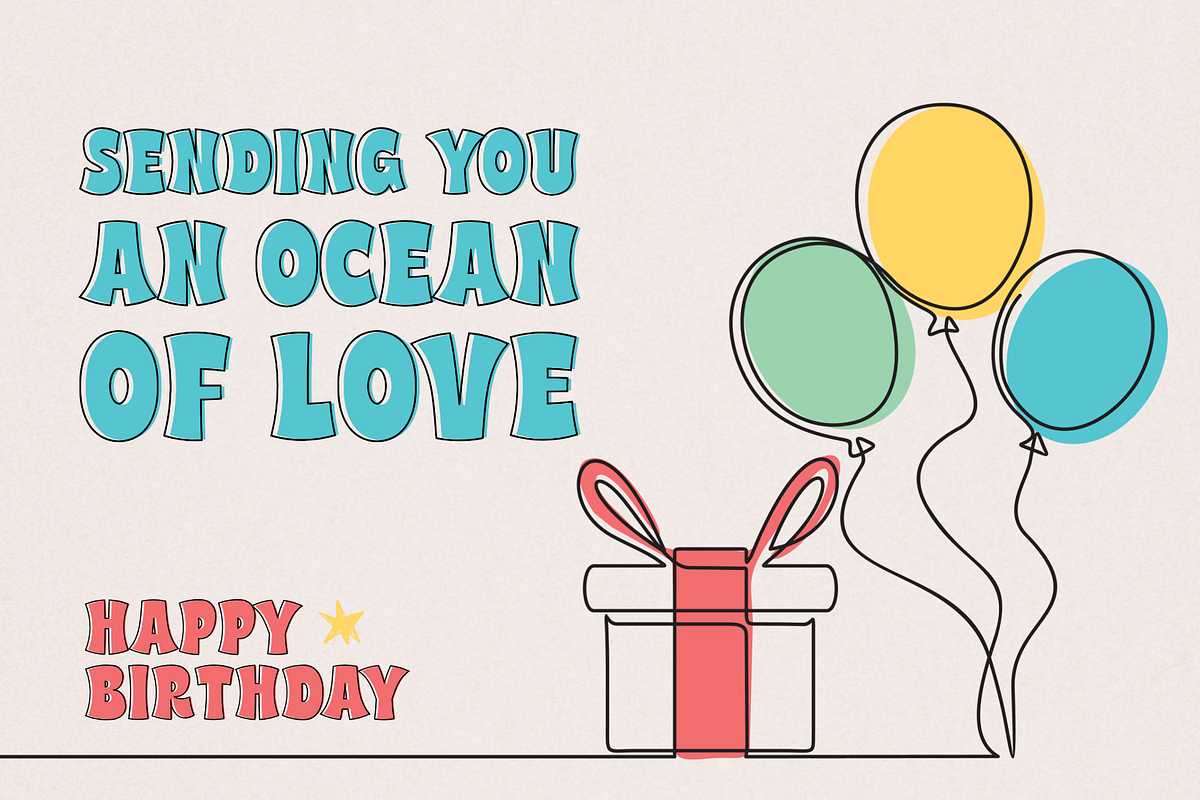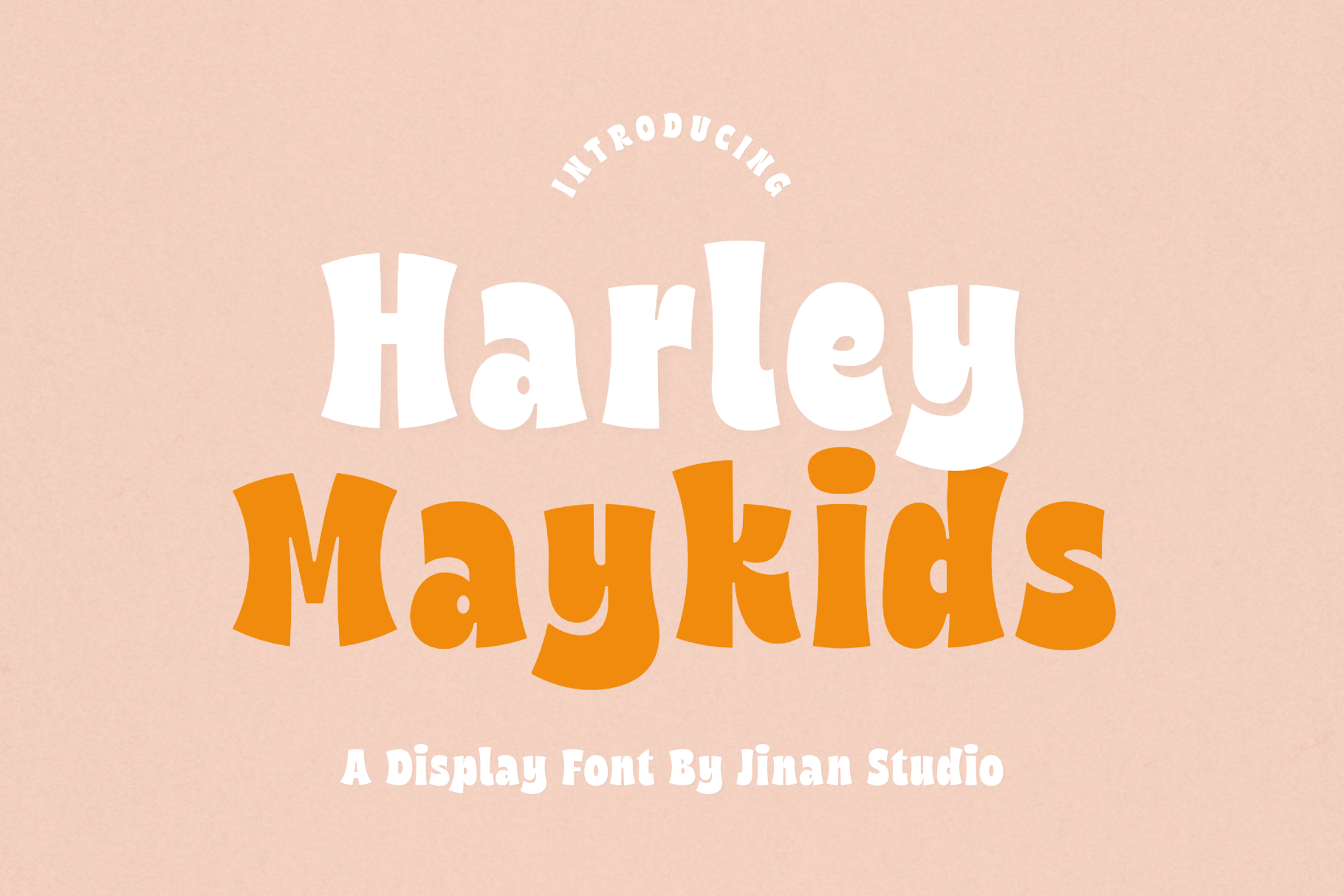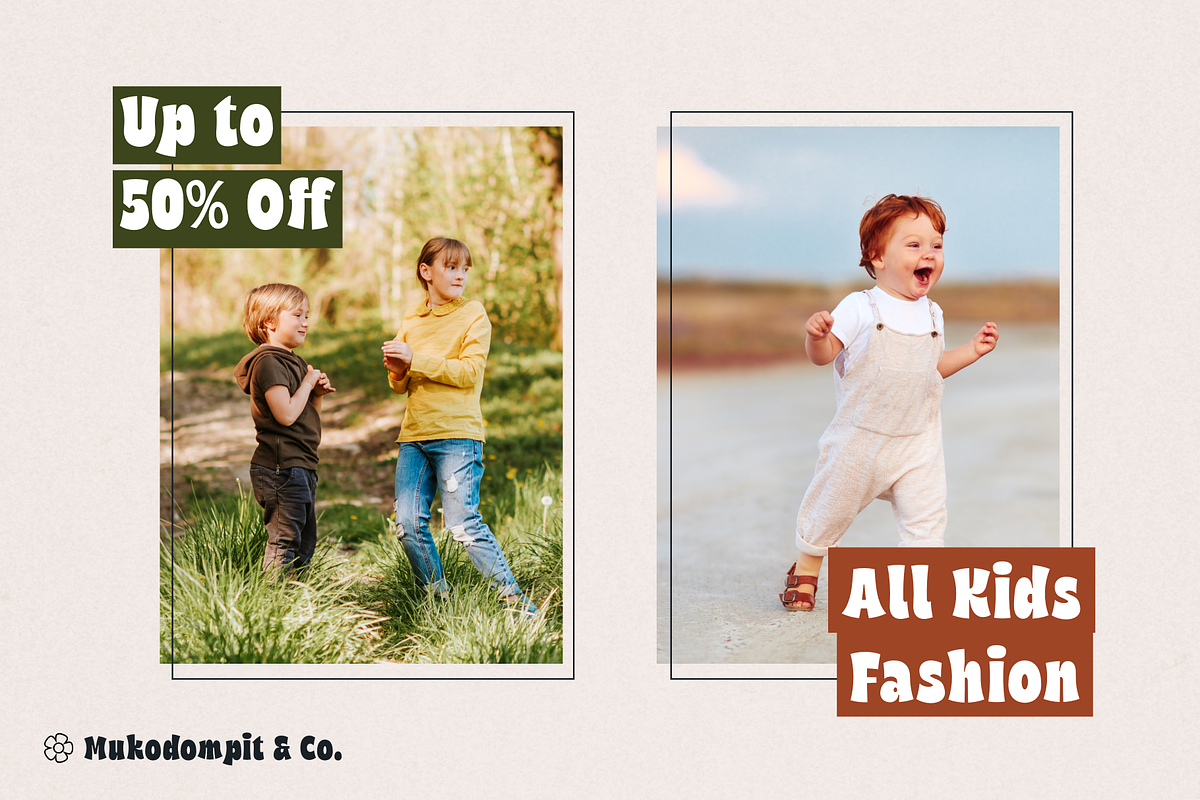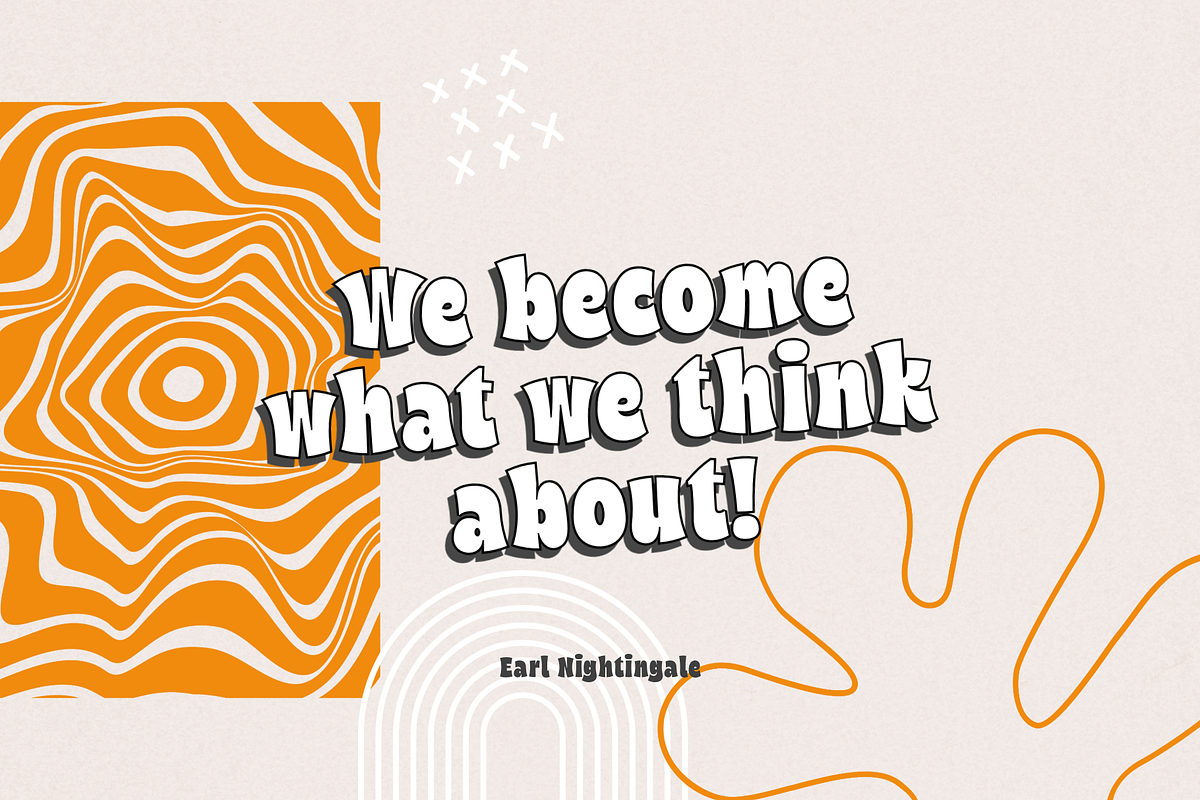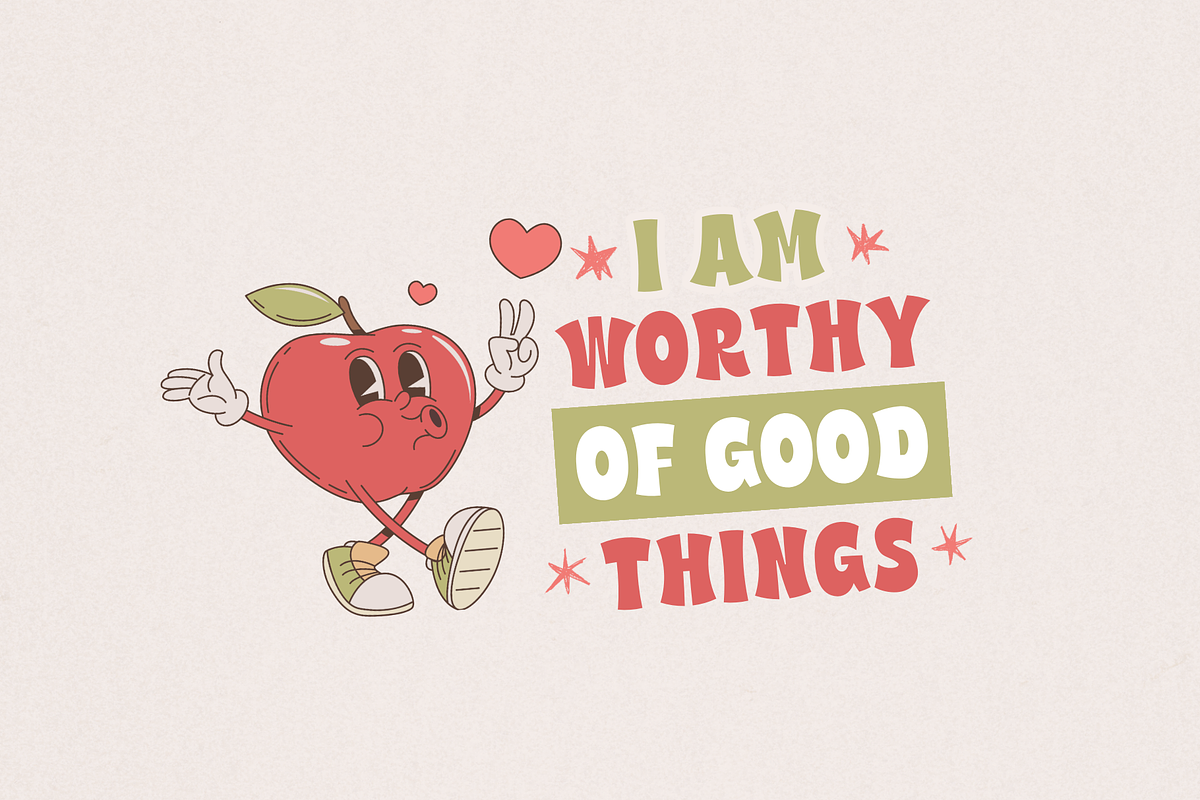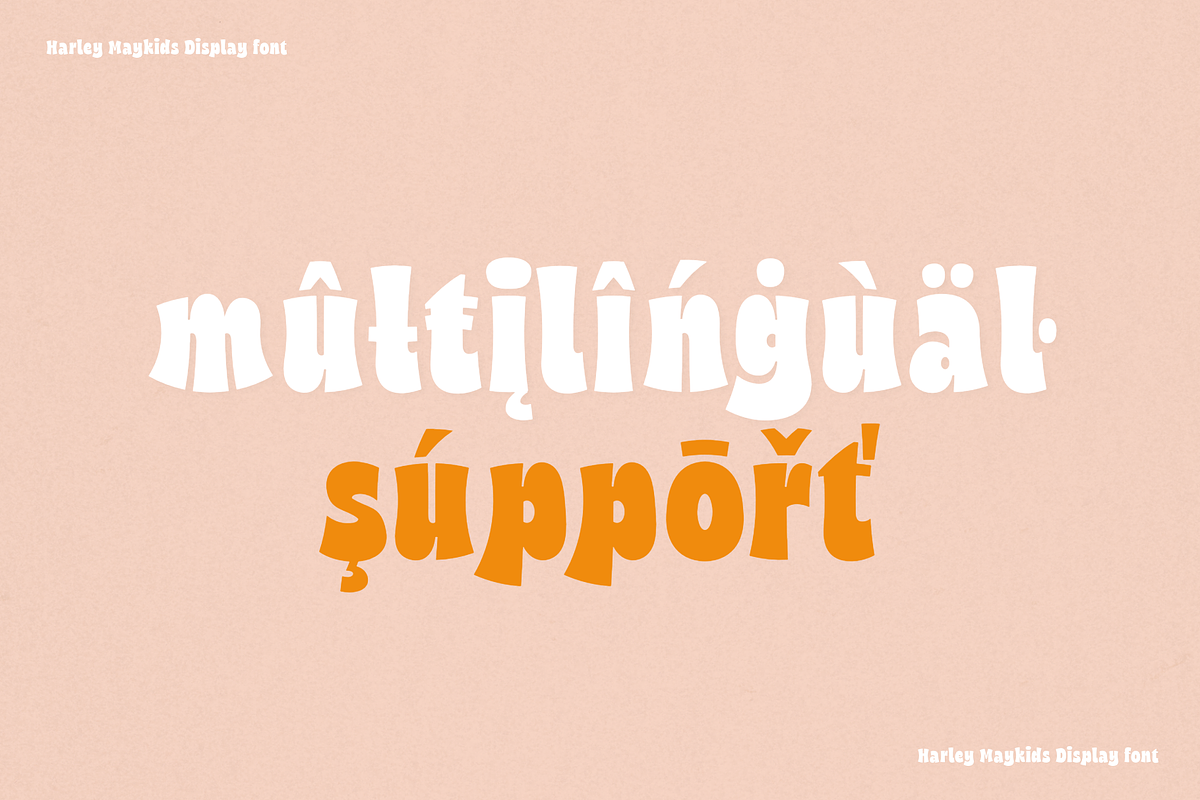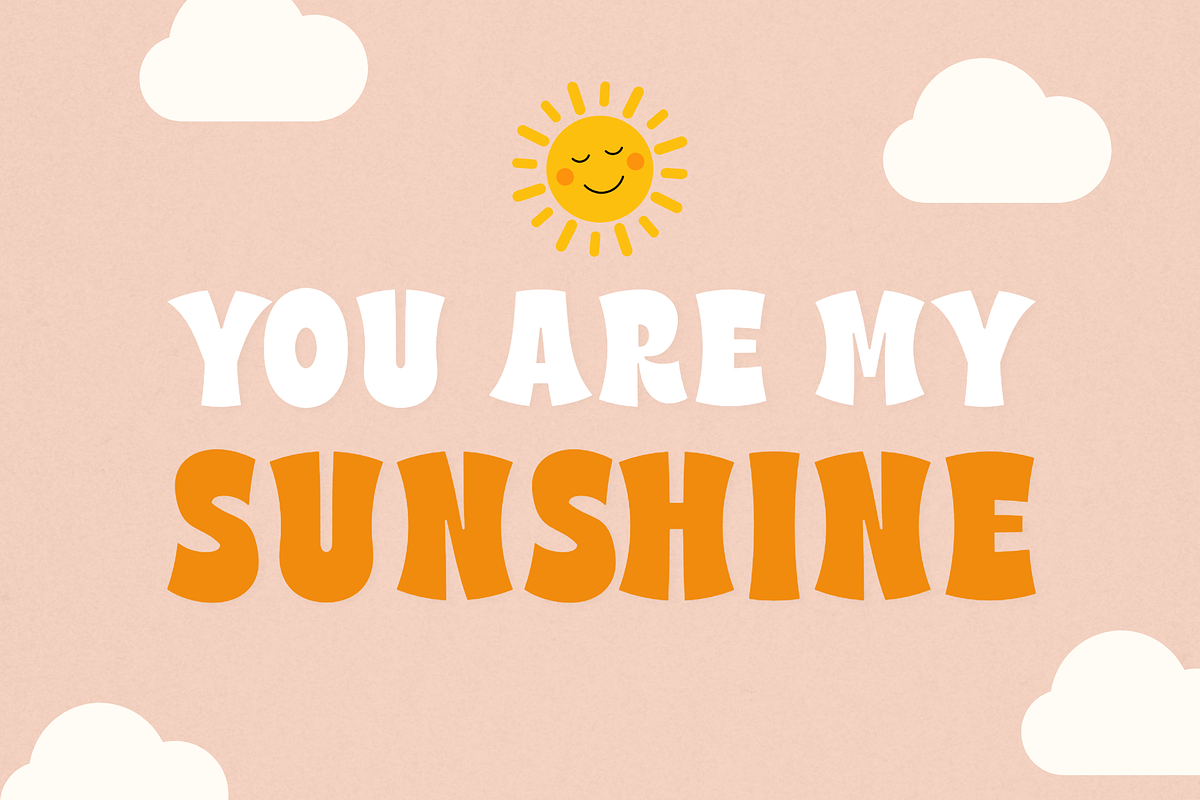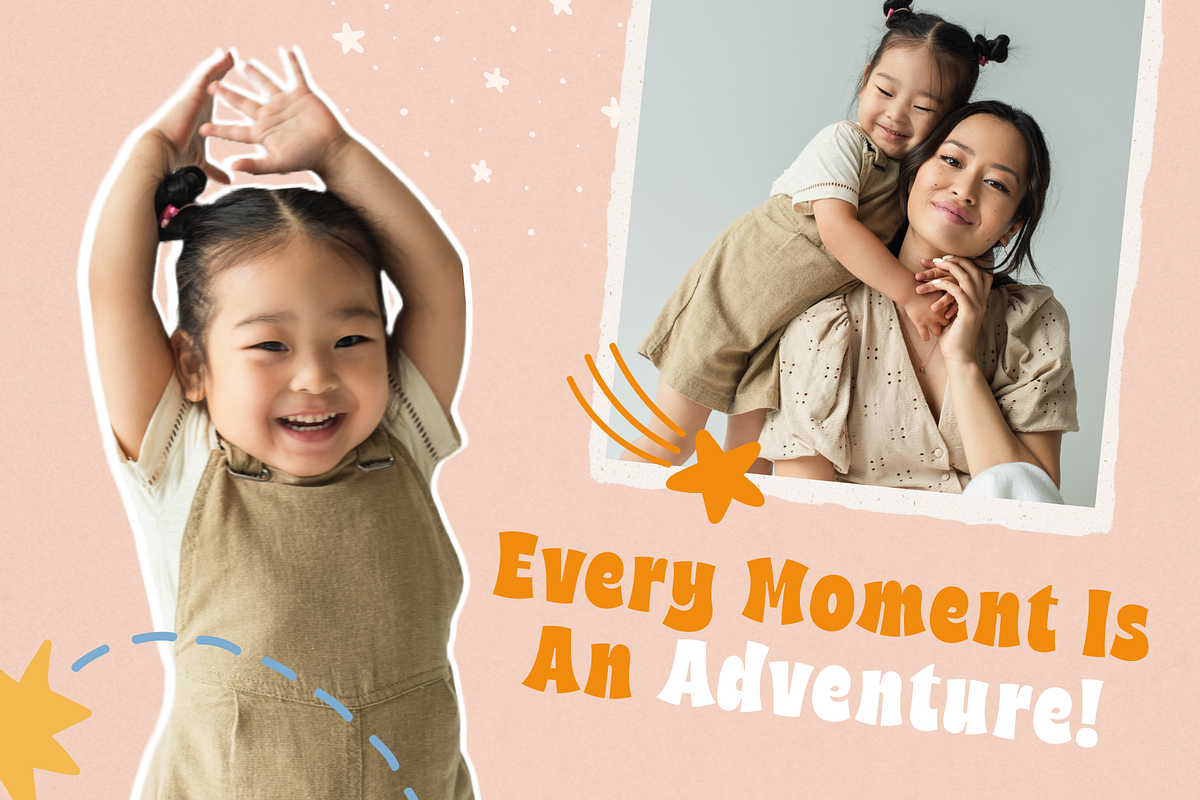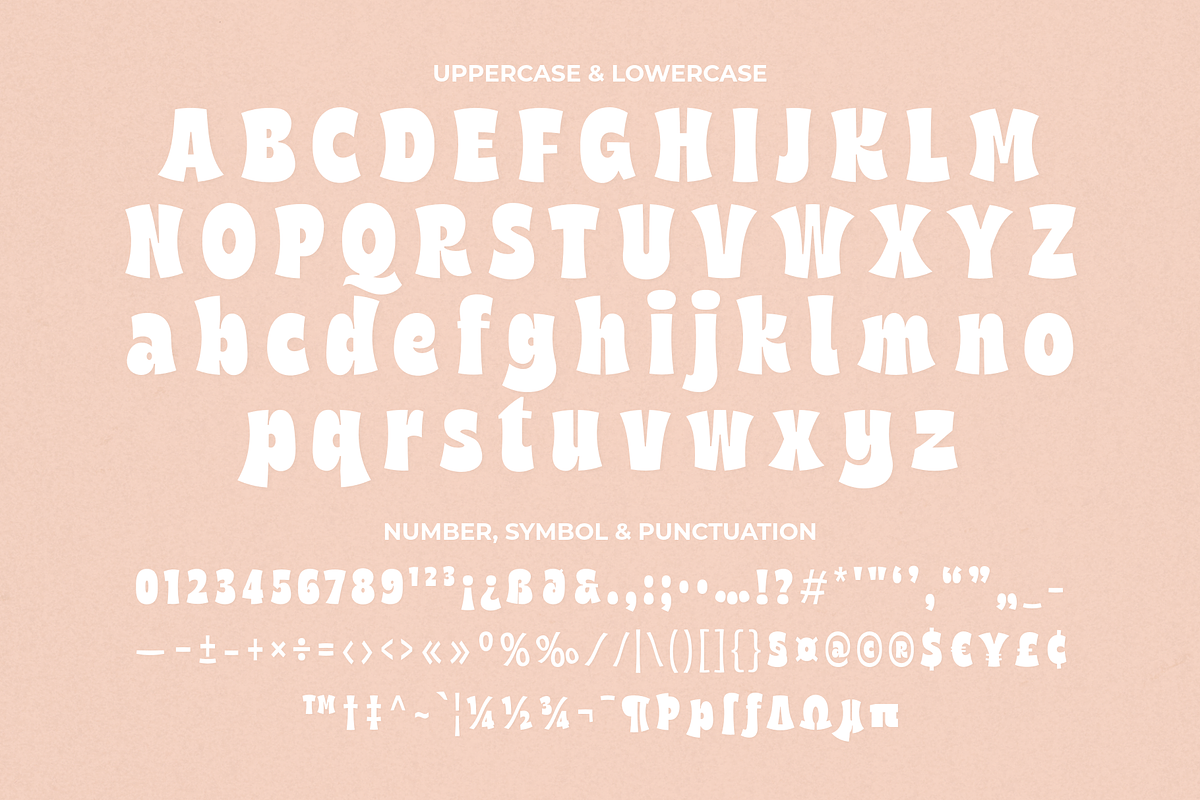
Harley Maykids - A Display Font
Harley Maykids is a bold and playful display font featuring chunky shapes, soft curves, and a cheerful retro-inspired style. Designed to stand out, this font is perfect for kids branding, snack and food packaging, playful logos, posters, merchandise, and eye-catching headlines. Its friendly and bubbly letterforms bring a fun, energetic personality that makes any design feel more lively, warm, and memorable.
- A set of uppercase and lowercase glyphs
- Number, symbol, and punctuation